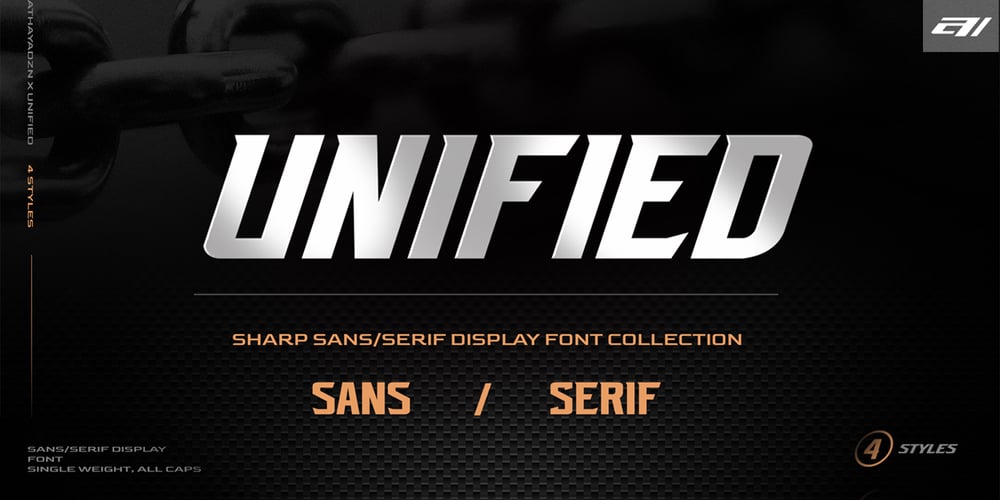
AZN Unified Font Family was designed by Ahmad Athaya and published by AthayaDZN. AZN Unified contains 4 styles and family package options. Introducing “AZN Unified” font by AthayaDZN. UNIFIED was inspired by the evolving sports world that recently just expanded into the digital verse.UNIFIED’s rounded and sharp look is representing its nature of unity, equipped with 4 different angles of corners, UNIFIED achieved its mixed modern style of a bold serif font.Language Support : Afrikaans, Albanian, Danish, Dutch, English, Estonian, Filipino, Finnish, French, Galician, Indonesian, Irish, Italian, Luxembourgish, Norwegian, Portuguese, Romansh, Scottish Gaelic, Spanish, Swedish, Swiss German, Uzbek (Latin).